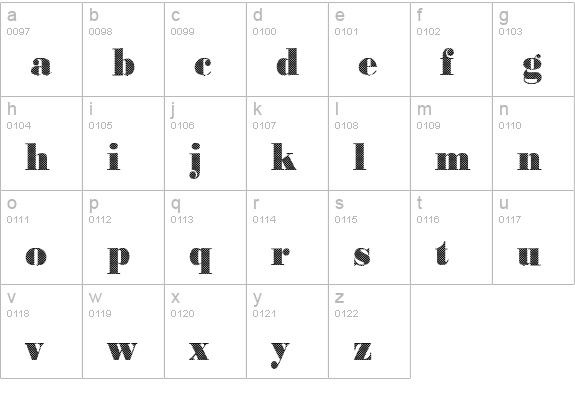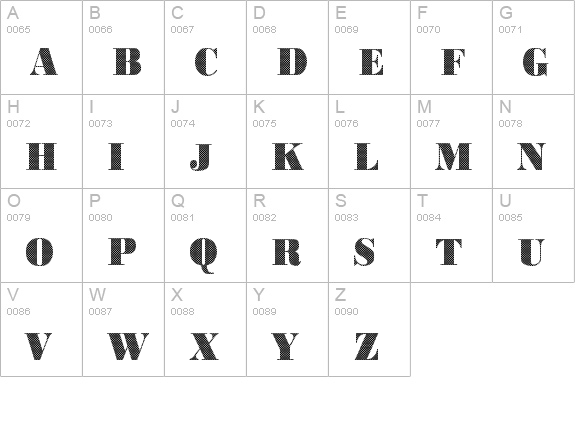
BodoniDiamonds-Regular Font Details
BodoniDiamonds-Regular is the standard, neutral variant in the BodoniDiamonds typeface family \xE2\x80\x94 well suited to general body text, paragraphs, and standard typographic work.
BodoniDiamonds-Regular is an elegant and sophisticated font that exudes a sense of luxury and refinement. Its sleek lines and sharp serifs give it a timeless and classic look that is perfect for adding a touch of sophistication to any design project. The unique diamond-shaped terminals on the letters add a subtle touch of flair and individuality, making this font stand out from the crowd. What sets BodoniDiamonds-Regular apart is not just its striking design, but also the fact that it is completely free to download. That's right, you can elevate your designs and projects with this beautiful font without having to spend a dime. Simply head over to FontsMarket.com and download BodoniDiamonds-Regular today to add a touch of elegance and sophistication to your work.